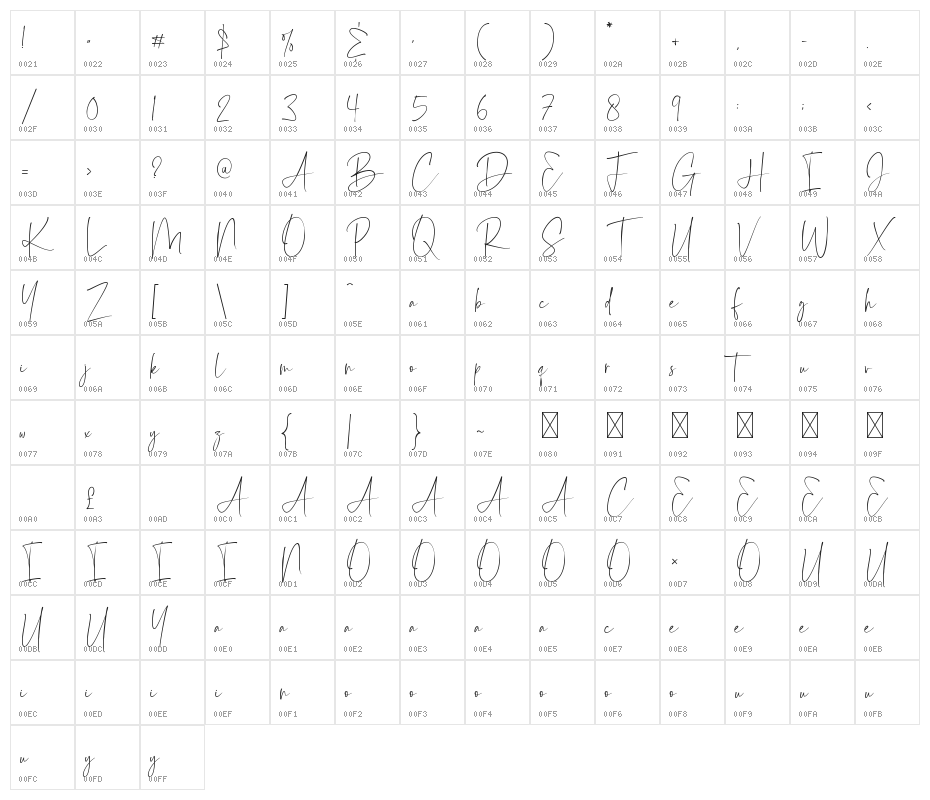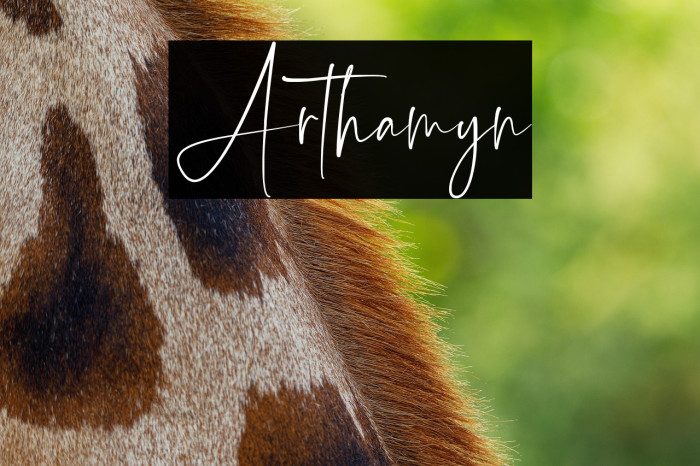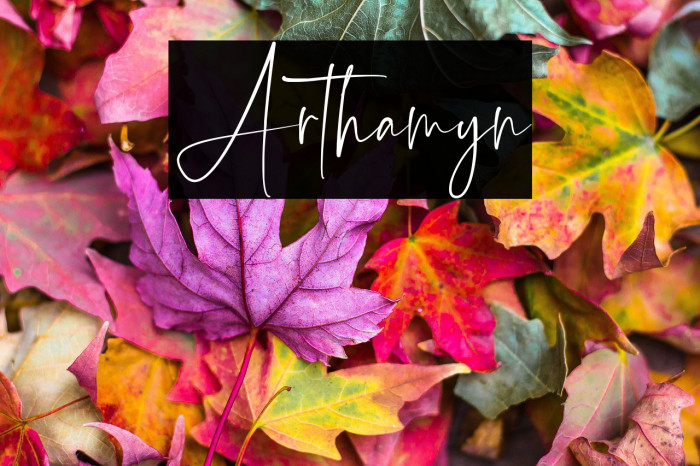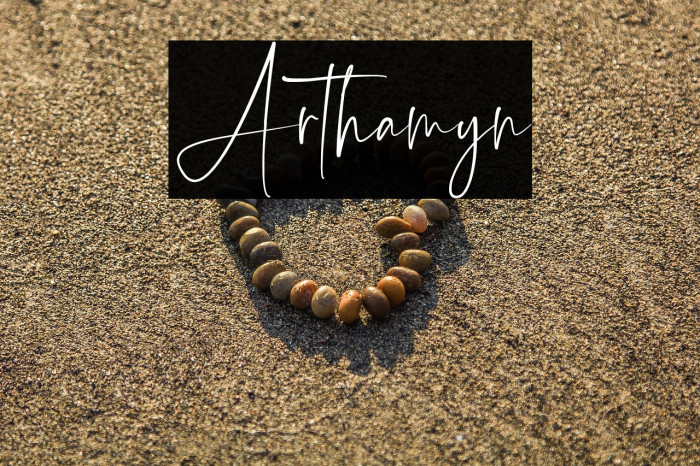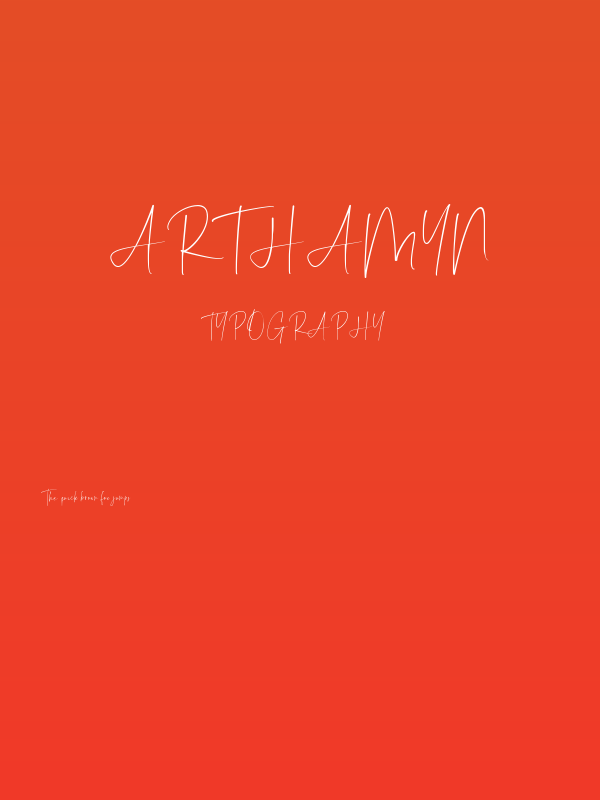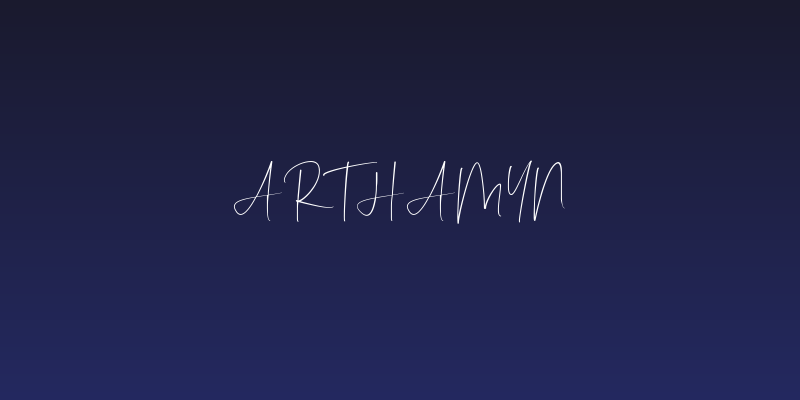
Arthamyn Font
| Gesamtstil | Modern, Artistic |
| Anwendungsfall | Logos, Invitations, Artistic Projects |
| Vorgeschlagene Projekte | Ideal for wedding invitations, personal branding, artistic posters, and creative social media graphics. |